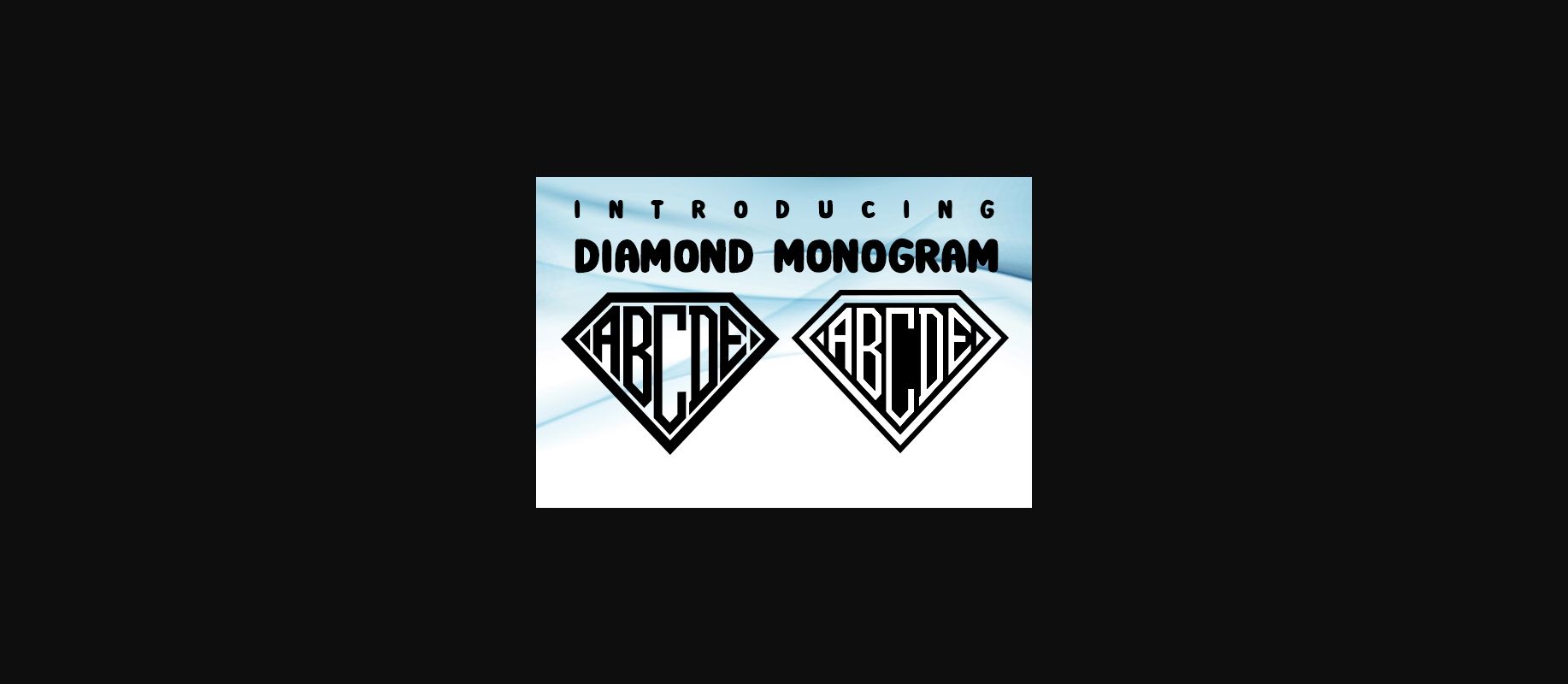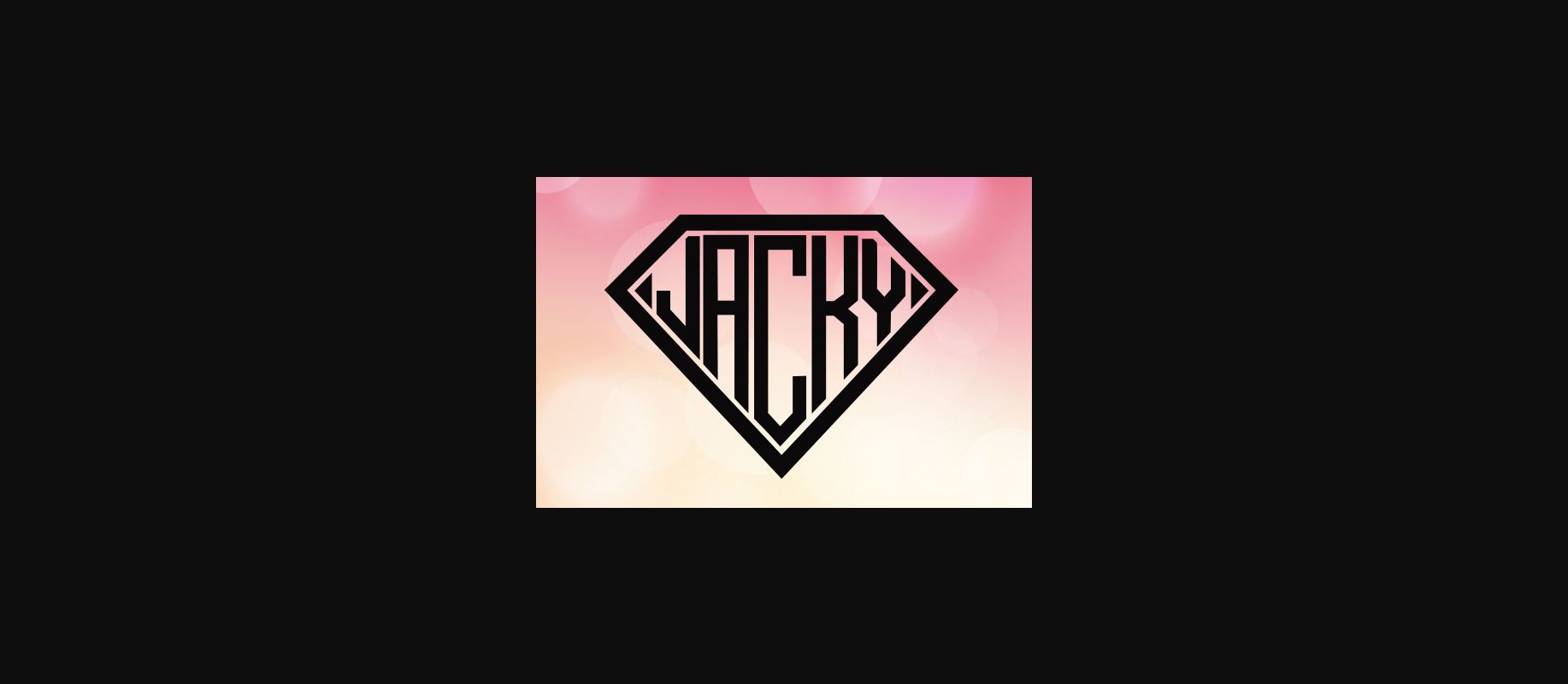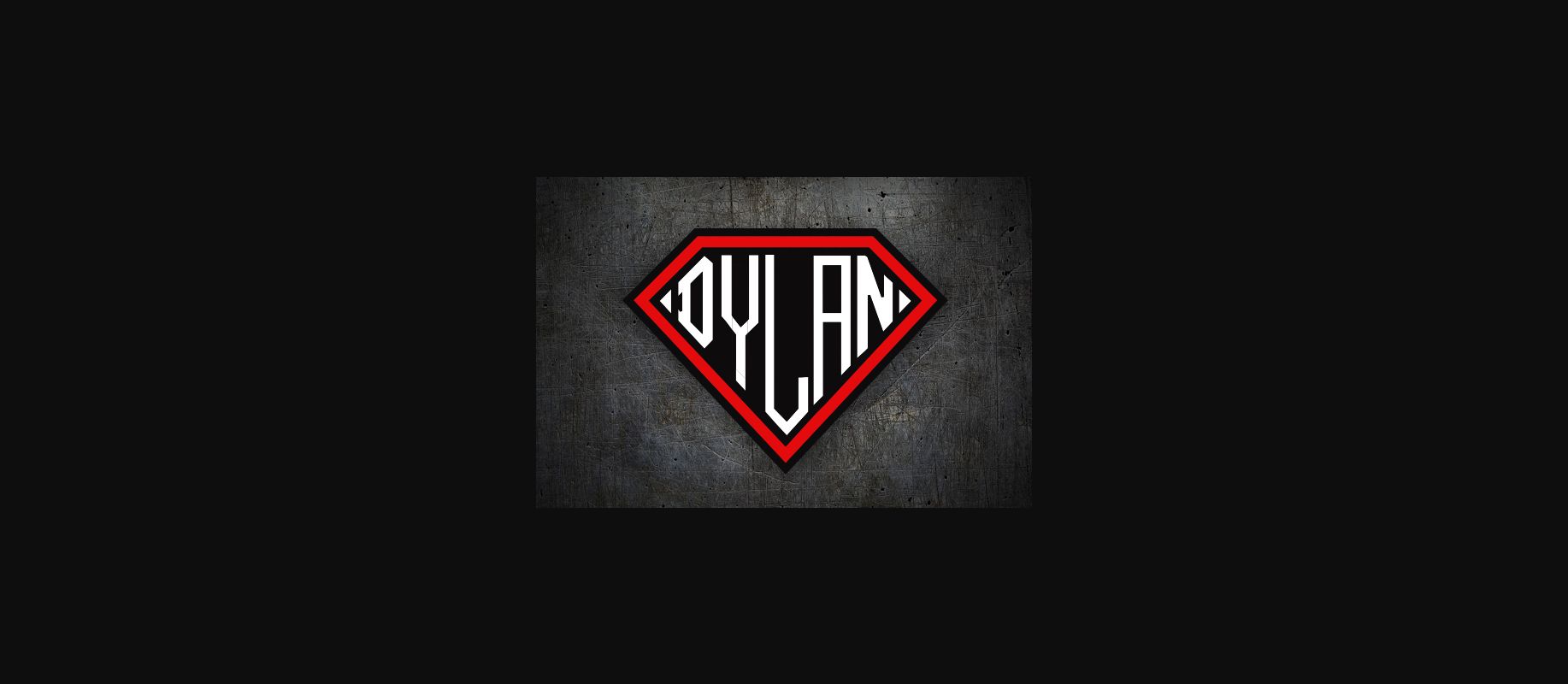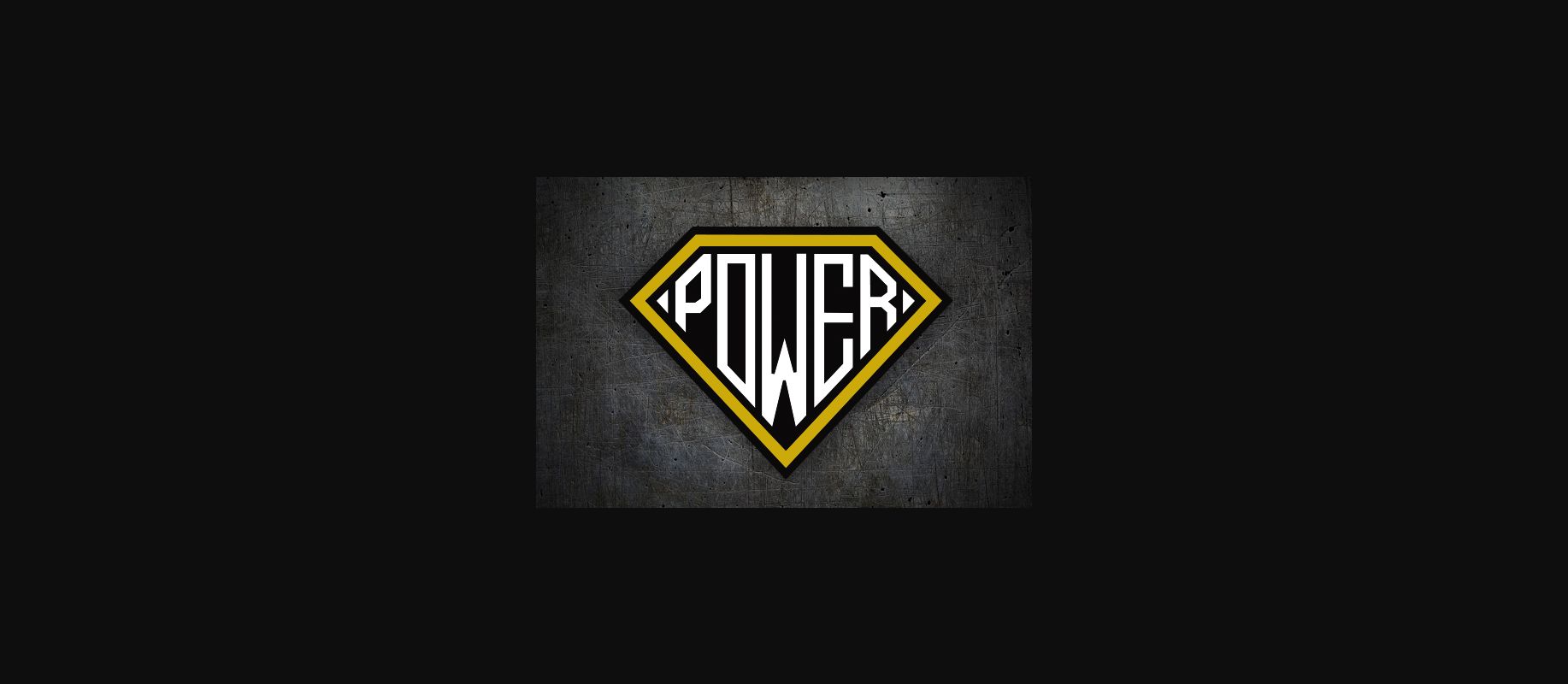
Diamond Monogram Font
About Diamond Monogram  Font
Diamond Monogram is a unique decorative font. Whether it’s for the web, print, moving images, or anything else, this font will look spectacular!